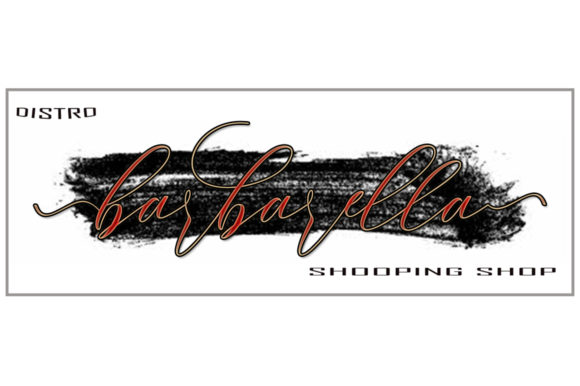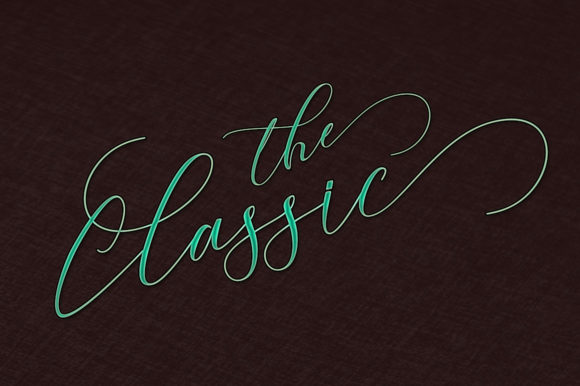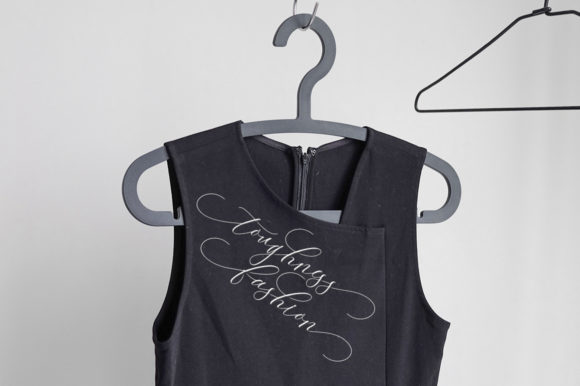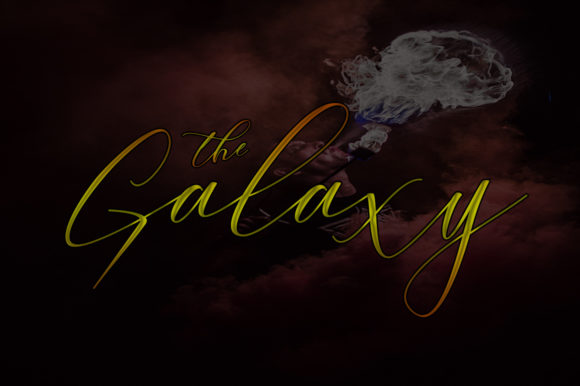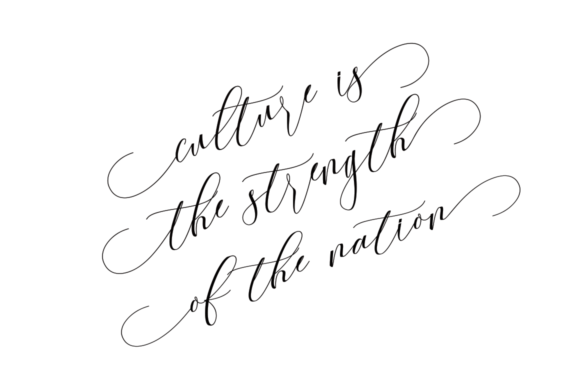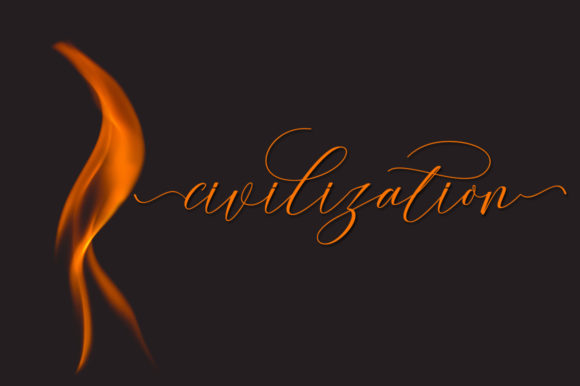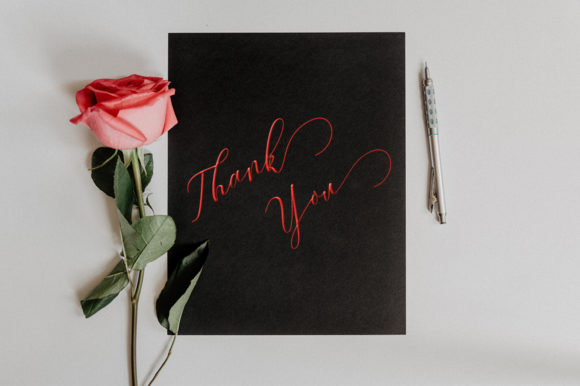
Culture Font
About Culture Font
Culture is an incredibly flowing and elegant handwritten font. It is PUA encoded which means you can access all of the glyphs and swashes with ease! It features a varying baseline, smooth lines, gorgeous glyphs and stunning alternates. Fall in love with its versatile and distinct style and use it to create spectacular designs!